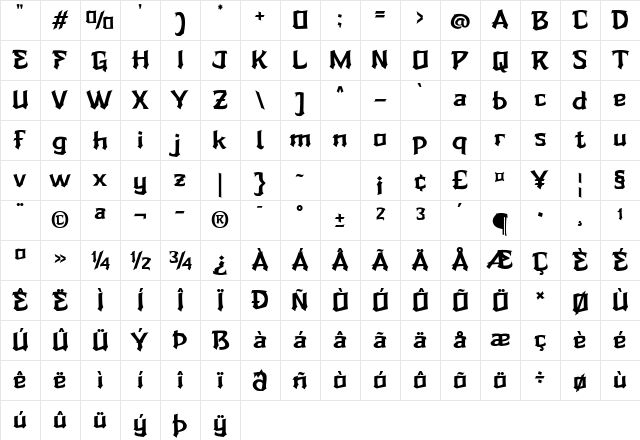
ZIERUK Trial Regular
Complete ZIERUK Trial Regular glyph index. Displaying only characters natively supported by ZIERUK Trial Regular font.
Design Context for ZIERUK Trial
ZIERUK Trial is a composed and adaptable typeface that performs quietly and consistently across a wide range of design contexts.